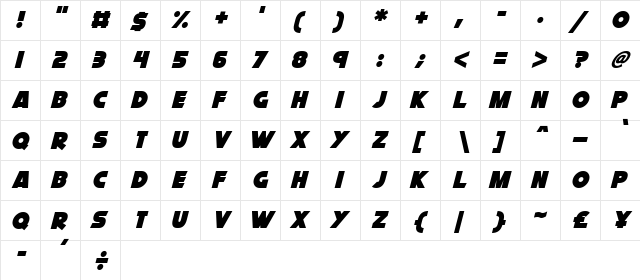
Cryogenix Italic
Design Context for Cryogenix Typeface
Cryogenix takes a measured approach to typography — its balanced proportions and neutral character make it a reliable workhorse for both digital and print work. The slanted form adds forward momentum and visual energy.
Pro Tip: Use Cryogenix for emphasis, pull quotes, and subheadings where its slanted energy can add rhythm to the layout.